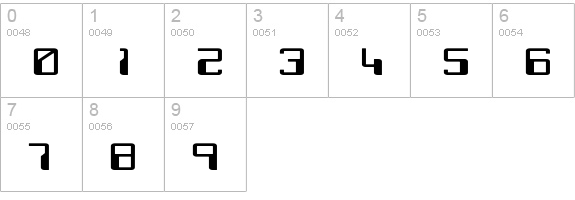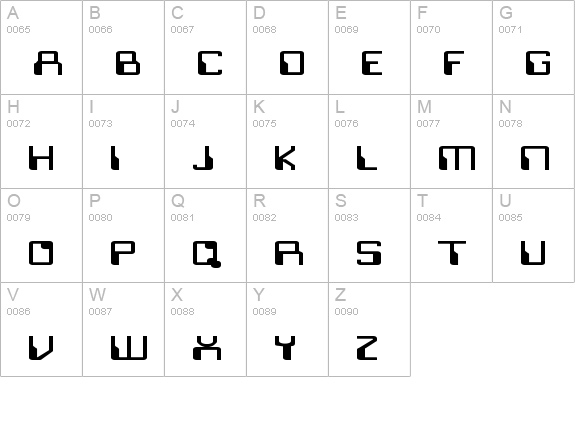
Future Ex Font Details
Introducing Future Ex font, a sleek and modern typeface that exudes sophistication and style. With its clean lines and contemporary design, Future Ex is perfect for a wide range of design projects, from branding to editorial design. This versatile font is sure to make a statement and elevate your work to the next level. What's even better is that Future Ex is completely free to download at FontsMarket.com. Yes, you read that right - this high-quality font is available for you to use in your projects at no cost. Don't miss out on the opportunity to add this stunning typeface to your collection and take your designs to new heights. Download Future Ex today and let your creativity shine!